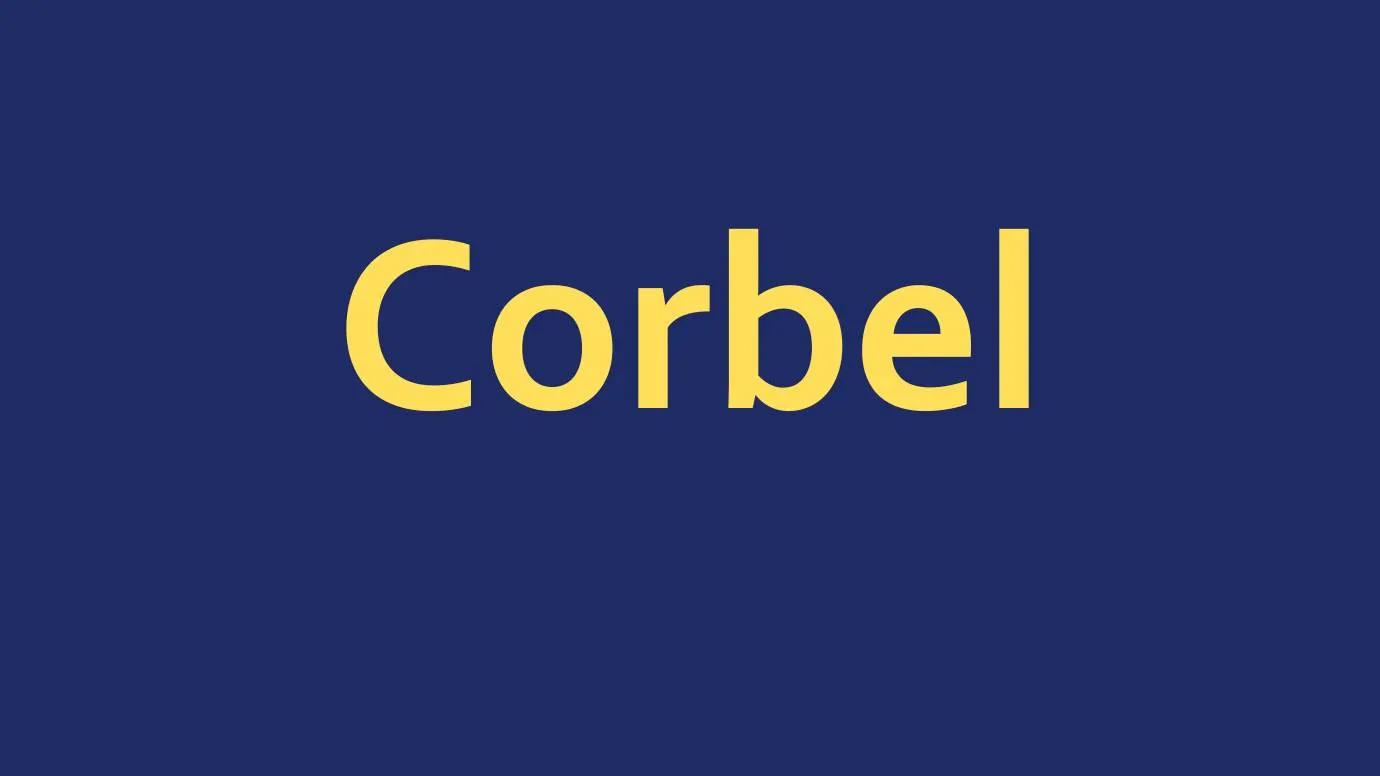
Corbel Font Family is a top-notched and tremendous popular sans serif typeface that has a very stunning humanist look. This superb font was designed in 2005 by Jeremy Tankard for Microsoft. The design consists of 3 weights including regular, italic, and bold.
NameCorbel Font
DesignerJeremy Tankard
FoundryMicrosoft
StyleSans serif
Date Released2005